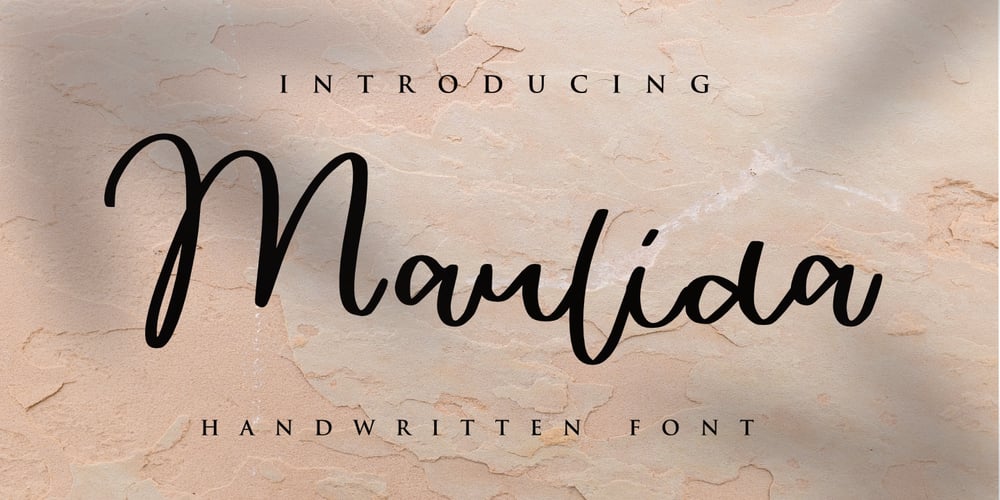
Maulida Font Family was designed by Mariyana and published by Goodigital13. Maulida contains 1 styles and family package options. This font perfect for signature logo, handwritten quotes, product packaging, fashion magazine, photography, merchandise, branding projects, poster, social media post, book cover, flyer, and advertising. You can create easily and make it as if you wrote it yourself.handmade calligraphy style, decorative characters and a dancing baseline! So beautiful on invitation like greeting cards, branding materials, business cards, quotes, posters, and more!!Best match for logo, badge, packaging, headline, poster, t-shirt/apparel, greeting card, and wedding invitation. The flowing characters are ideal to make attractive messages